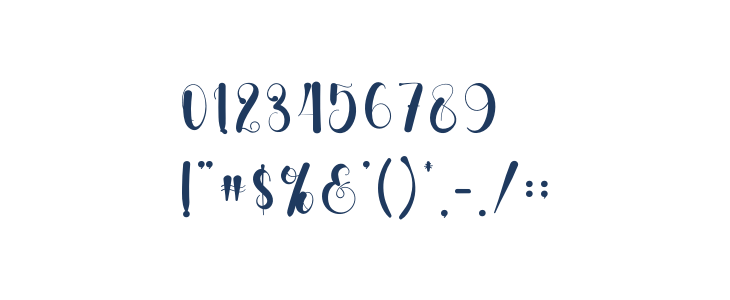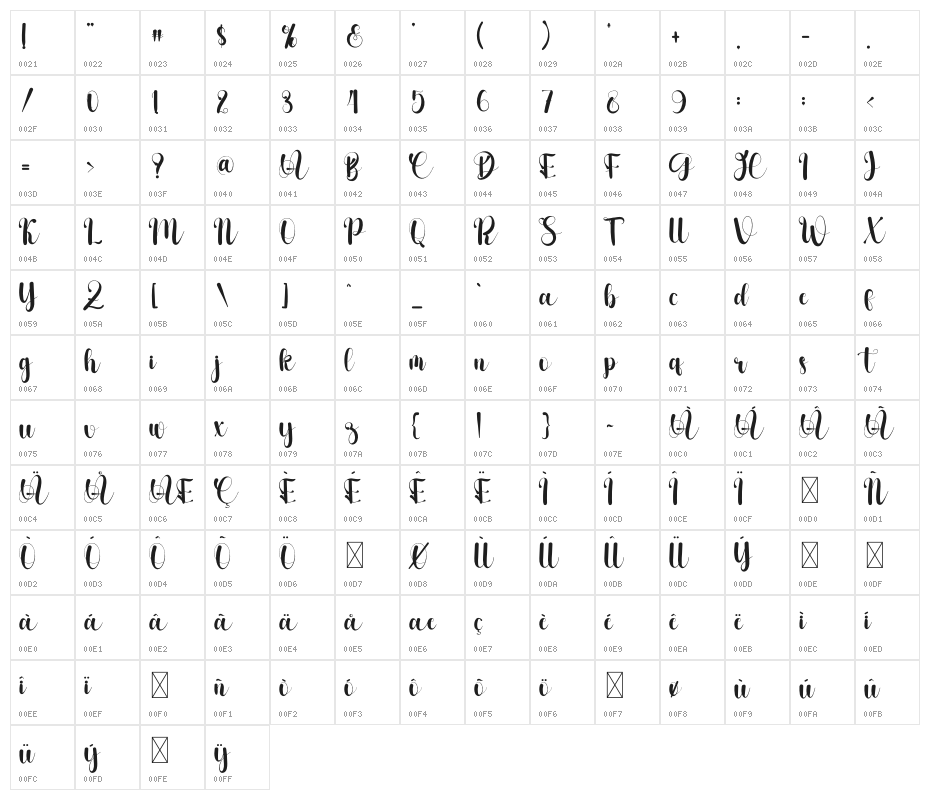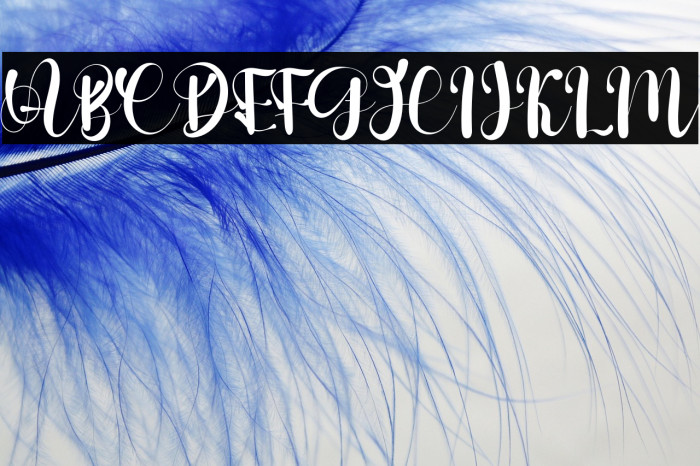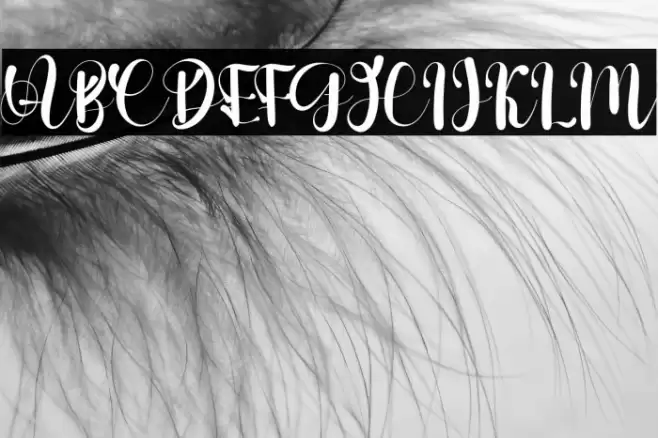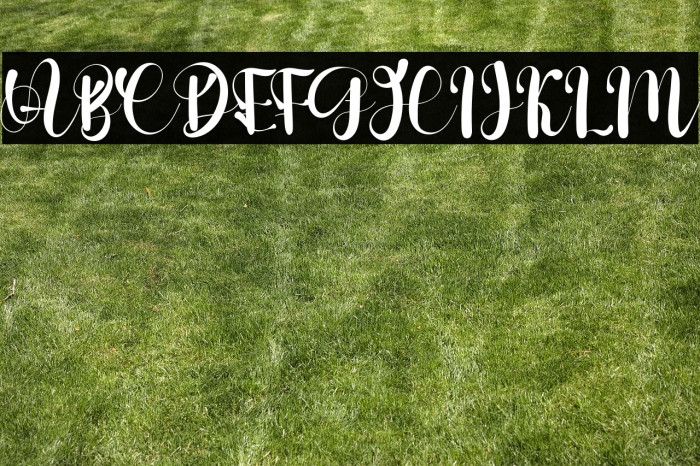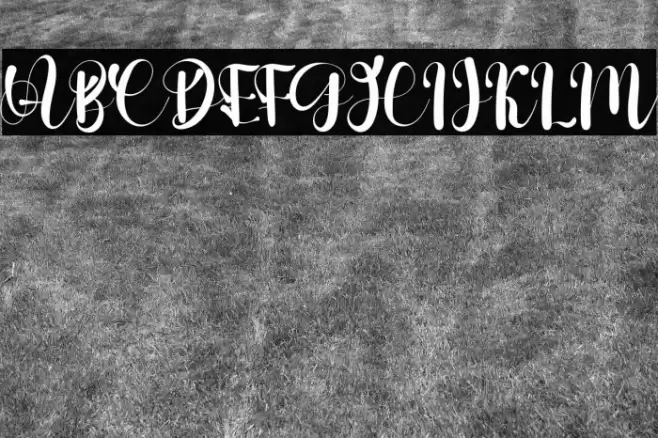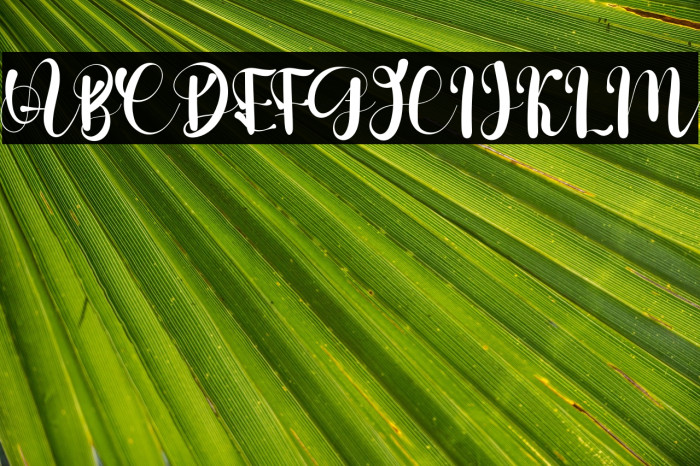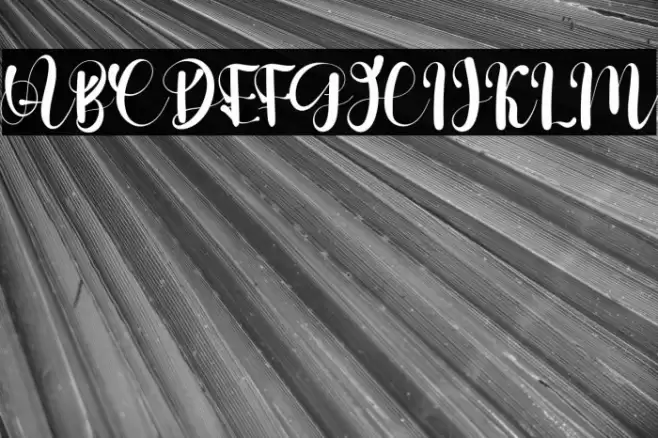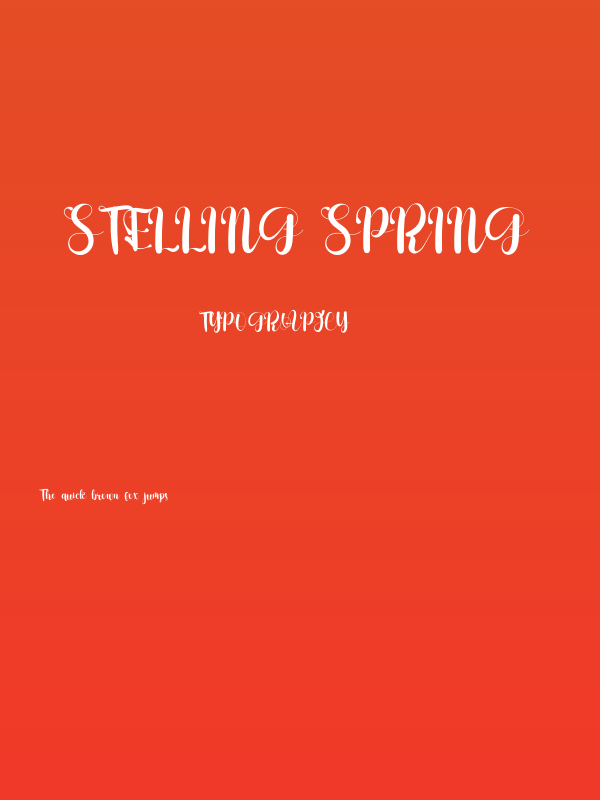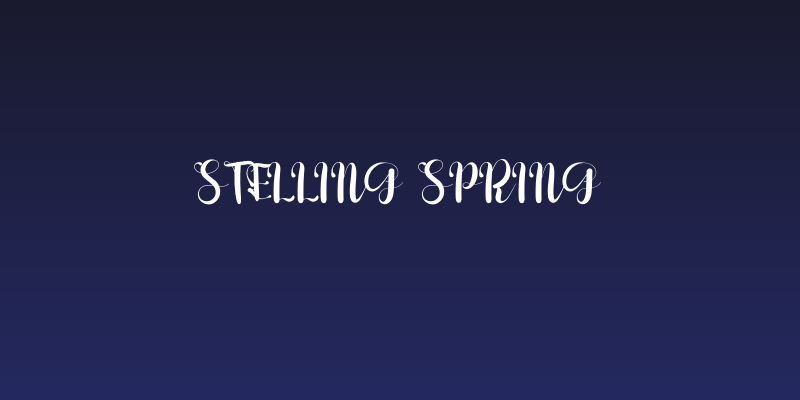
Stelling Spring Font
Stelling Spring Description
This font features an elegant and flowing script style, characterized by its ornate and decorative letterforms. The uppercase letters are particularly elaborate, with sweeping curves and flourishes that give a sense of movement and grace. The lowercase letters maintain a consistent style, with smooth connections between strokes, enhancing the font's fluidity. Numbers and special characters are designed to match the overall aesthetic, with similar curves and embellishments. This font is ideal for projects that require a touch of sophistication and elegance.
| Proposed Projects | Ideal for wedding invitations, greeting cards, branding, and elegant logo designs. |